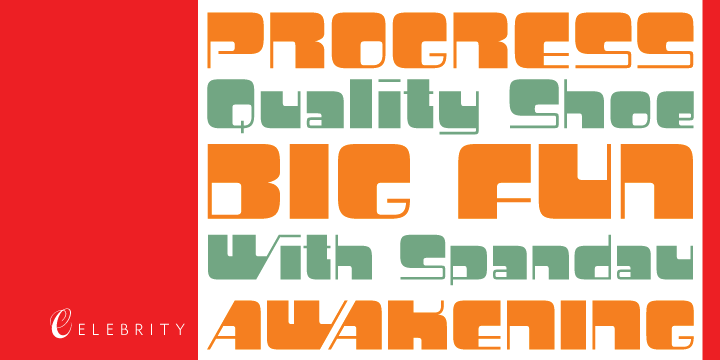
Celebrity is a new execution of a film type concept put forth by Willy Wirtz in 1971. The original idea, called Latus, had many irregularities and unfit characters that are now fixed and expanded in this digital version.
Celebrity’s construct combines extreme thicks with hairline thins to build forms that contribute to a type totality that is at once modern and techno, as well as retro-deco. Eye catching and memorable, Celebrity is ideal for use on posters, book covers, media sleeves and packaging. It also has enough geometric appeal to inspire unique logos and set attractive titling. More…